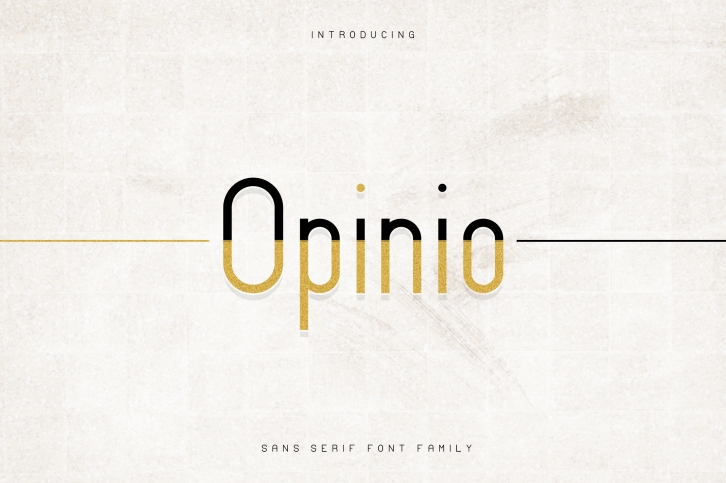
Opinio is a trendy and unique font with an authentic style. It was designed by VPcreativeshop and it's a great choice for creative people who need such a font. It was released on September 5, 2018 and the file size is 8.44 MB. Opinio will add an organic vibe to any design idea!